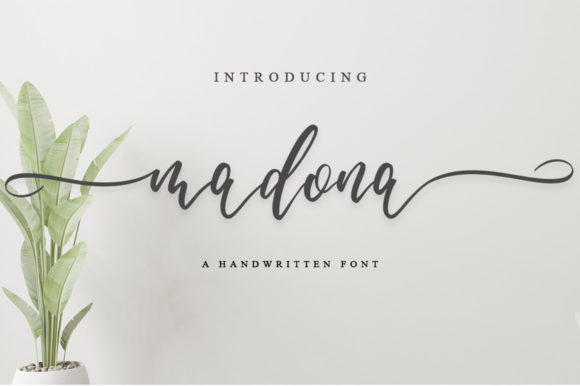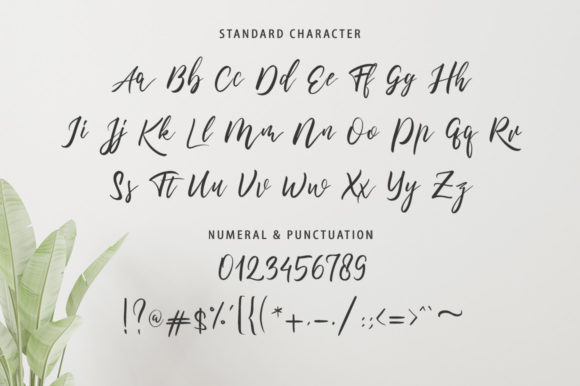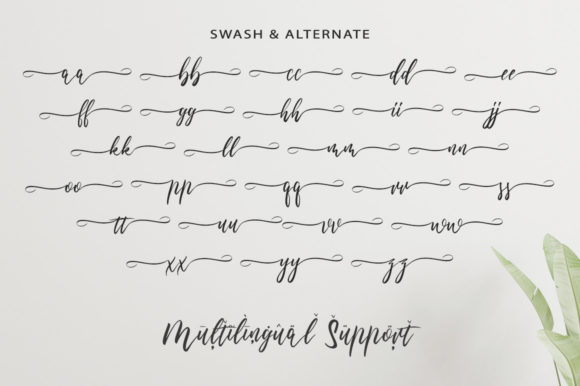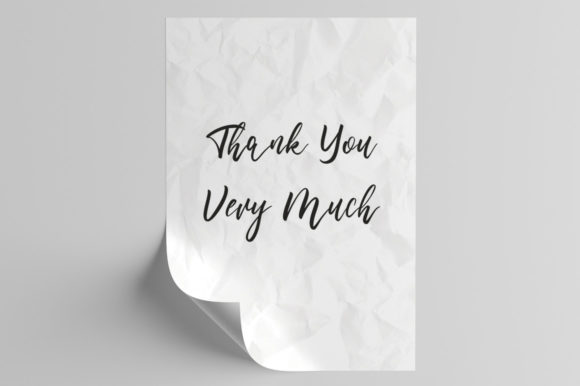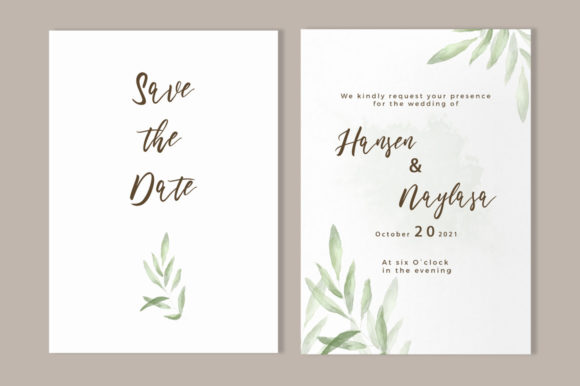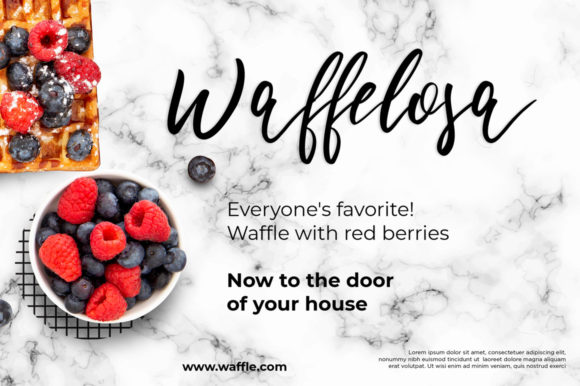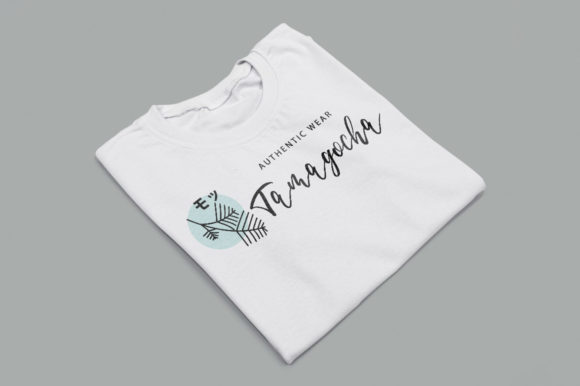
Madona Script Font
About Madona Script Font
Madona Script is a magical script font carefully created with a touch of elegance. Whether you’re looking for fonts for Instagram or calligraphy scripts for DIY projects, this font will turn any creative idea into a true piece of art!
Madona Script is PUA encoded which means you can access all of the glyphs and swashes with ease!